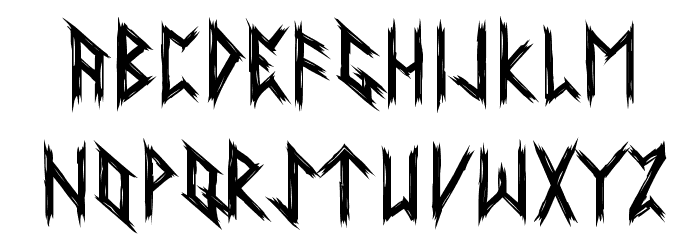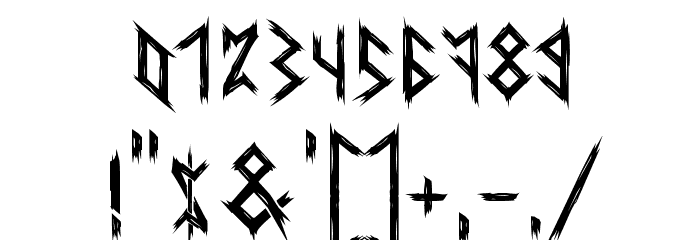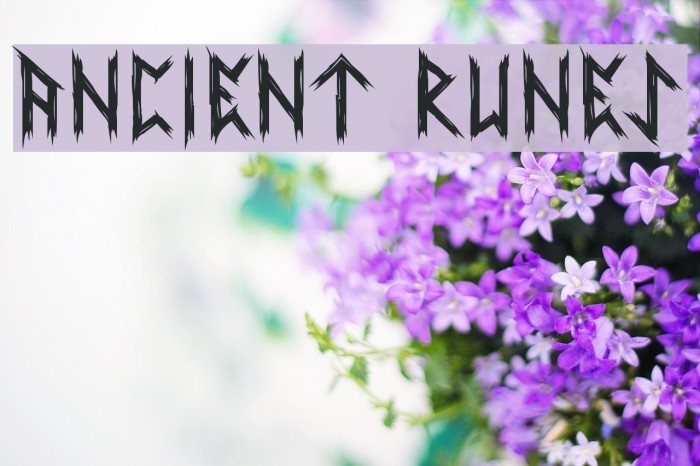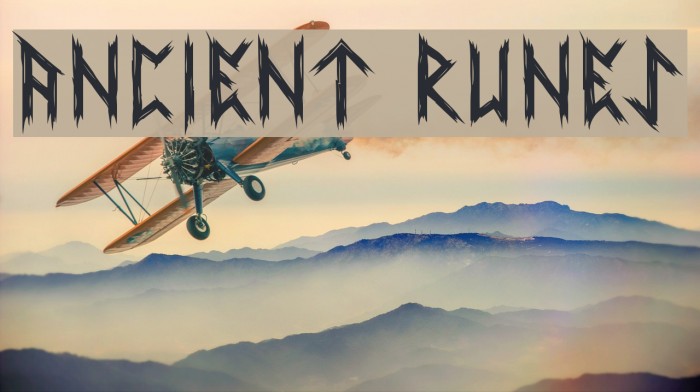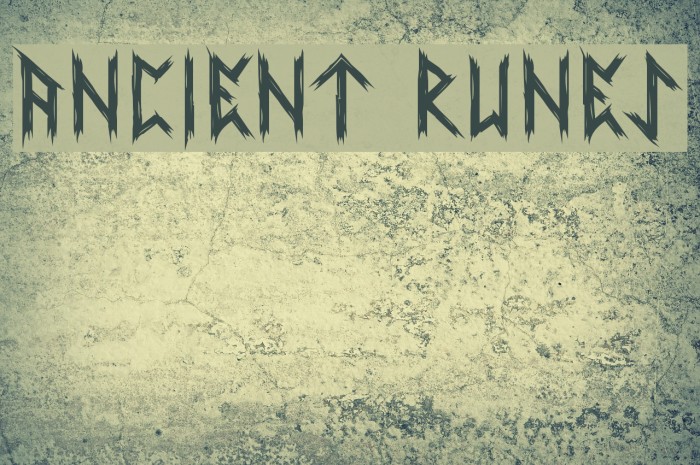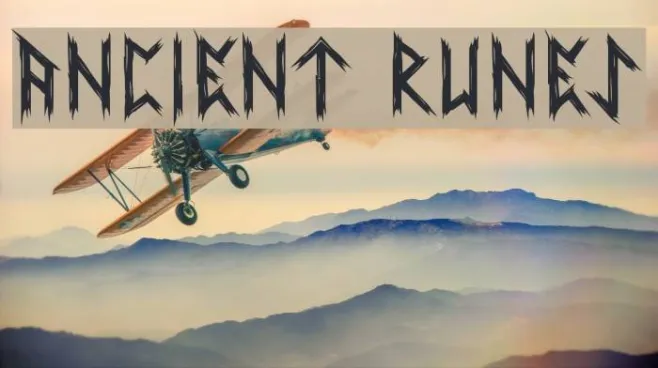
Ancient Runes Font
This font features a rugged, jagged design reminiscent of ancient runes or mystical symbols. Each character is crafted with sharp, angular lines that evoke a sense of mystery and antiquity. The uppercase and lowercase letters maintain a consistent style, with a bold presence that commands attention. Numbers and special characters are equally distinctive, adding to the font's unique aesthetic. The overall appearance is both striking and enigmatic, making it ideal for projects that require a touch of the arcane or mythical.
A jagged, rune-like font with a mystical and ancient appearance.
- Proposed Projects: Perfect for fantasy-themed book covers, game titles, or any project needing a mystical or ancient touch.
- Use Case: Logos, Titles, Posters